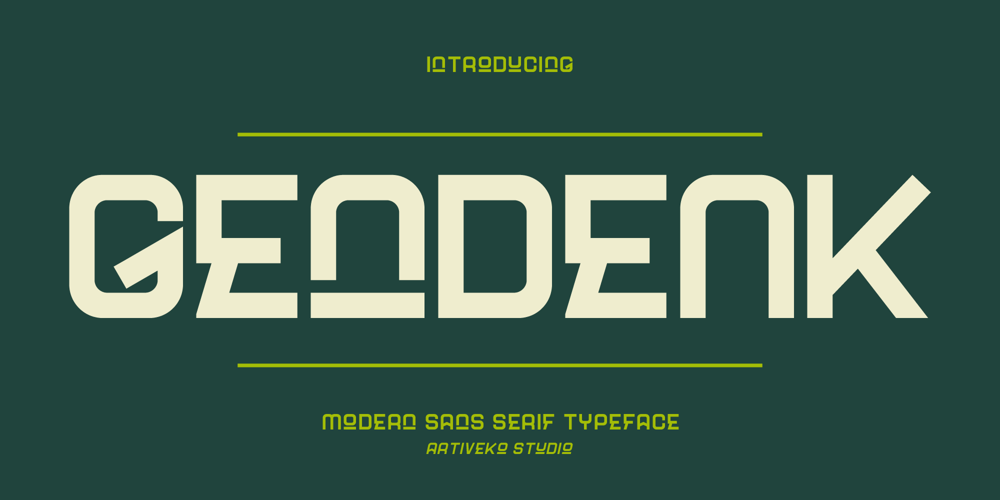
Gendenk Font Family was designed by Iwan Alwan and published by Artiveko. Gendenk contains 2 styles and family package options. Gendenk is a creative sans serif font designed by Iwan Alwan, featuring innovative and artistic letterforms that push the boundaries of traditional typography. Perfect for modern branding, editorial work, and digital projects, Gendenk adds a fresh and imaginative flair to any design. With multilingual support, ligatures, and alternates, Gendenk offers versatility while delivering a unique, forward-thinking aesthetic, ideal for those looking to create bold, original visuals.